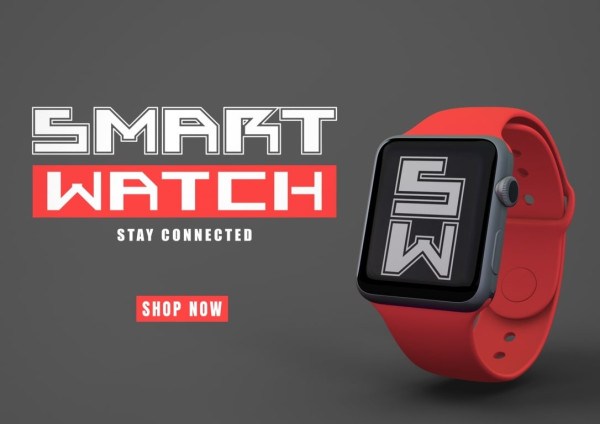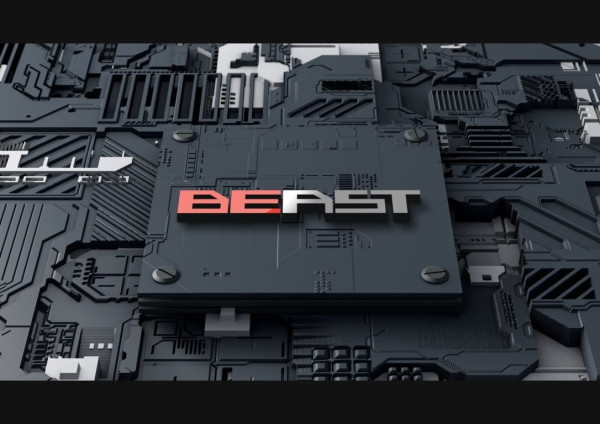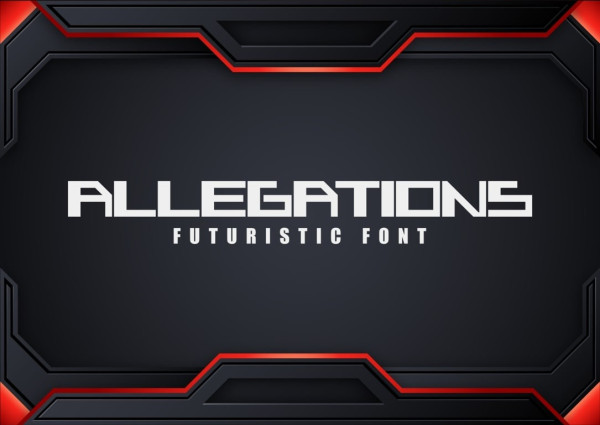
Allegations Futuristic Font
Allegations Futuristic Font is a font that captures the essence of modern boldness with a touch of upright, while maintaining simplicity and unique shapes. It is an ideal choice for incorporating into your gaming, future tech, space travel, virtual reality, and other related projects. Let Allegations elevate your designs and bring a contemporary edge to your creative endeavors.